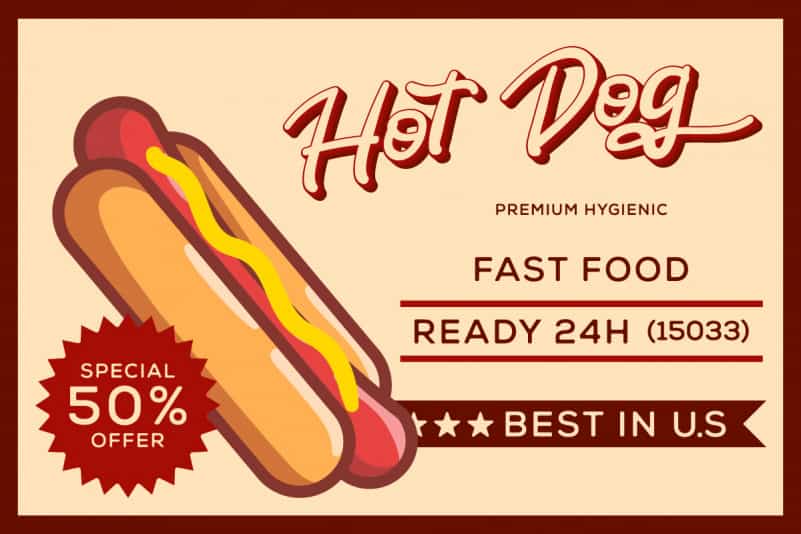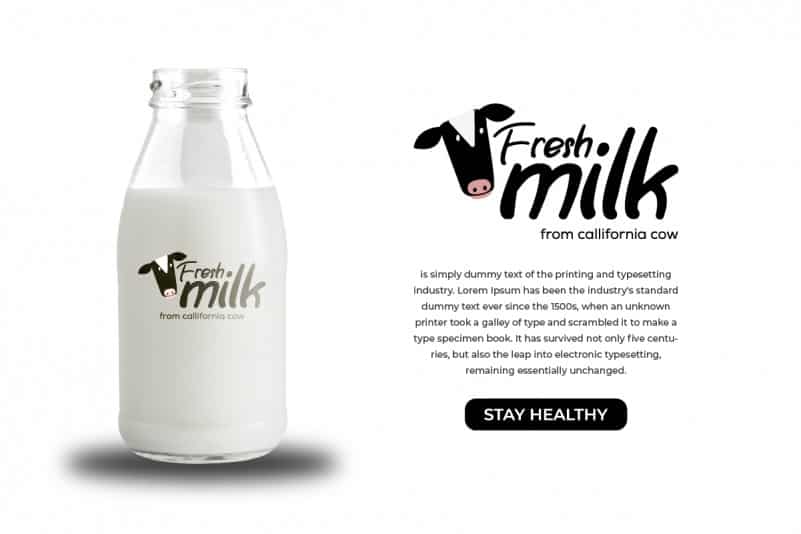
Play Tricks Script Font
Play Tricks Script Font was made in Indonesia by Lukman and Suci for RaisProject. The font was handcrafted With beautiful characters, it will be stunning for any your special projects including : games, promotion, events, branding, advertising, magazine, apps, signage, invitation, stationery, social media posts, product packaging, product designs, label, comic, watermark or and any projects that need calligraphy handwriting style.
Play Tricks Script Font includes full set of cool uppercase and lowercase letters, numerals, a large range of punctuation and ligatures. All letters has fun hand-lettered style to make it unique yet cool looking design.